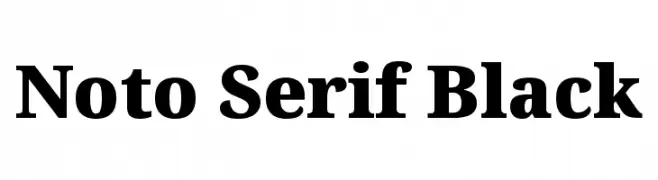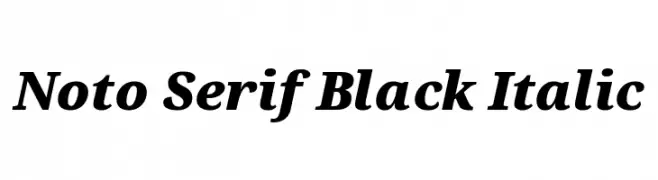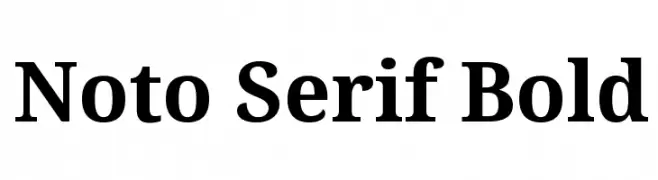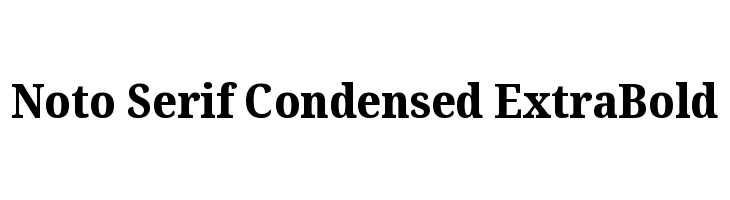
A light, semi-condensed serif font with a modern yet classic style.
A semi-condensed, medium-weight serif font with a modern yet classic appearance.
A semi-condensed serif font with semi-bold weight, offering a classic and readable style.
A semi-condensed, thin serif font with high contrast and elegant style.
A thin, elegant serif font with a modern and sophisticated design.
A bold and robust font with strong, thick strokes for impactful design.
A bold, high-contrast serif typeface with strong, thick strokes and prominent serifs.
A bold, italic serif typeface with strong contrast and dynamic style.
A bold serif font with strong, elegant strokes and excellent readability.